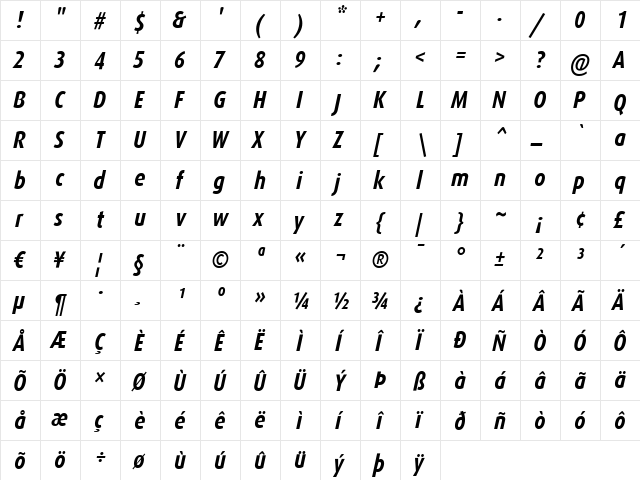
DaxCondensed-BoldItalic Regular Font Preview
| Foundry | Hans Reichel, published by Fontshop International for the FontFont library |
Design Context for DaxCondensed-BoldItalic Typeface
DaxCondensed-BoldItalic takes a measured approach to typography — its balanced proportions and neutral character make it a reliable workhorse for both digital and print work. Its italic angle brings a sense of urgency and motion to the letterforms. The heavy weight commands attention and anchors typographic hierarchies. Its narrow stance lets it pack a punch even in space-constrained designs.
Pro Tip: Try DaxCondensed-BoldItalic for annotation and caption copy alongside an upright companion — the contrast in angle creates a dynamic but ordered typographic system.